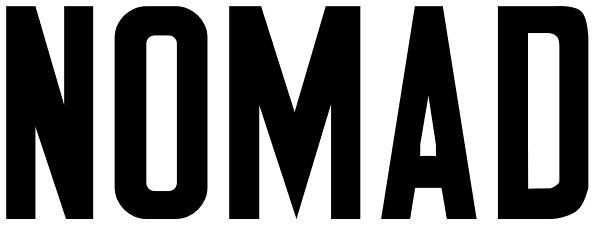
Nomad
Nomad so that small craft fisherman wouldn't get busted at the Canadian border for not having their rowboats listed with the required serialization of letters and numbers most beer drinkers, card players and bait casters would rather not deal with...